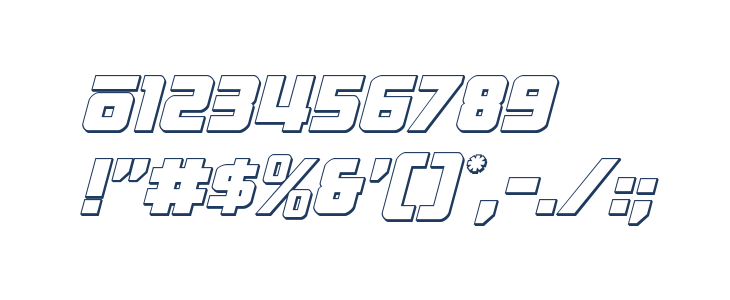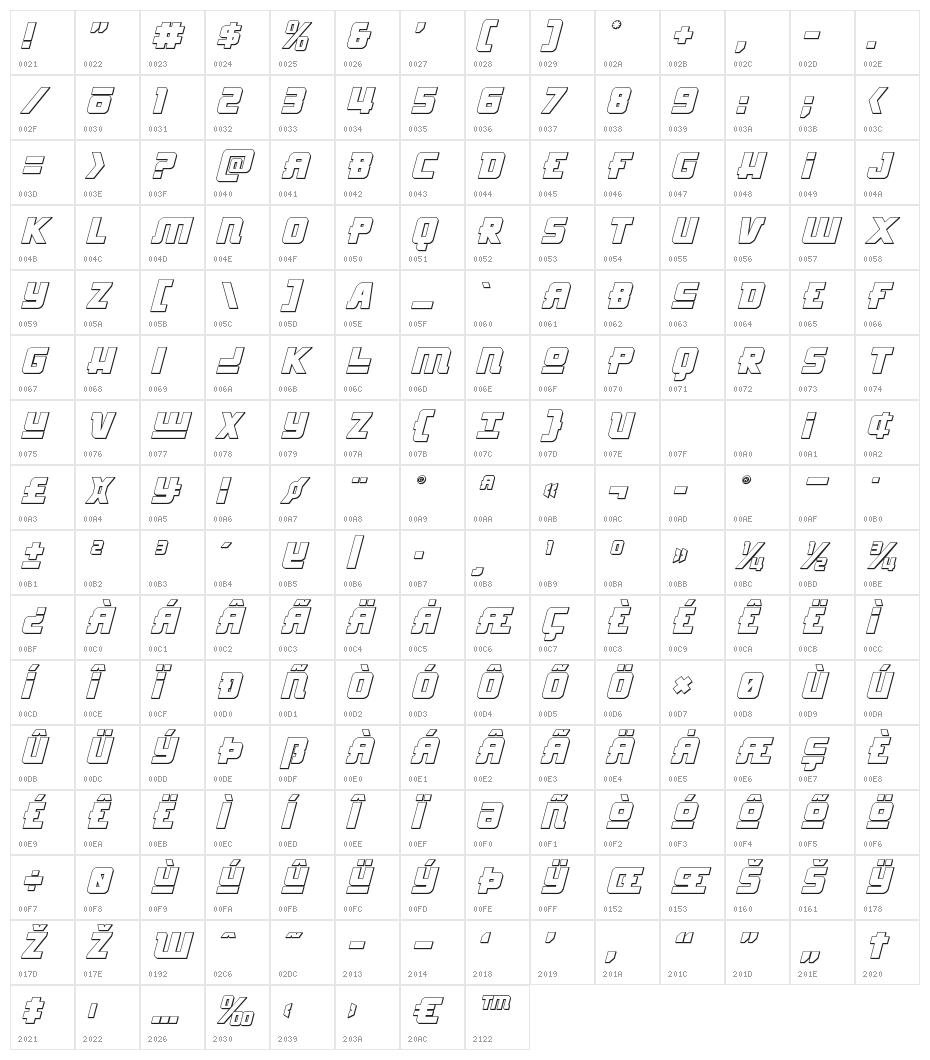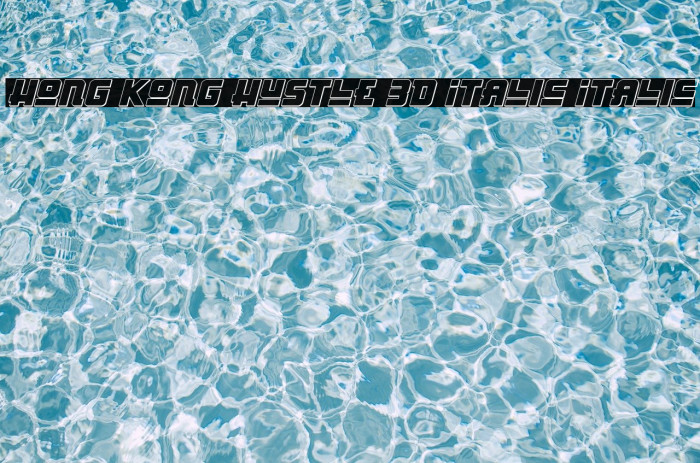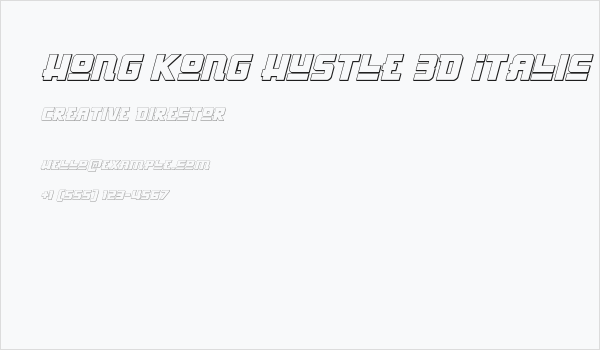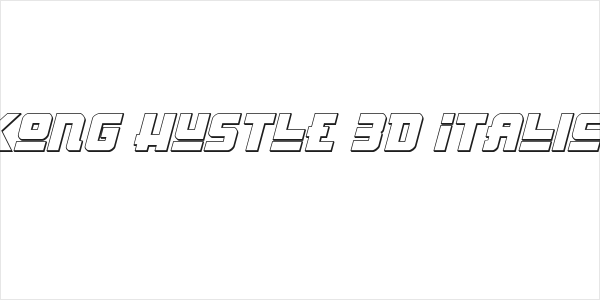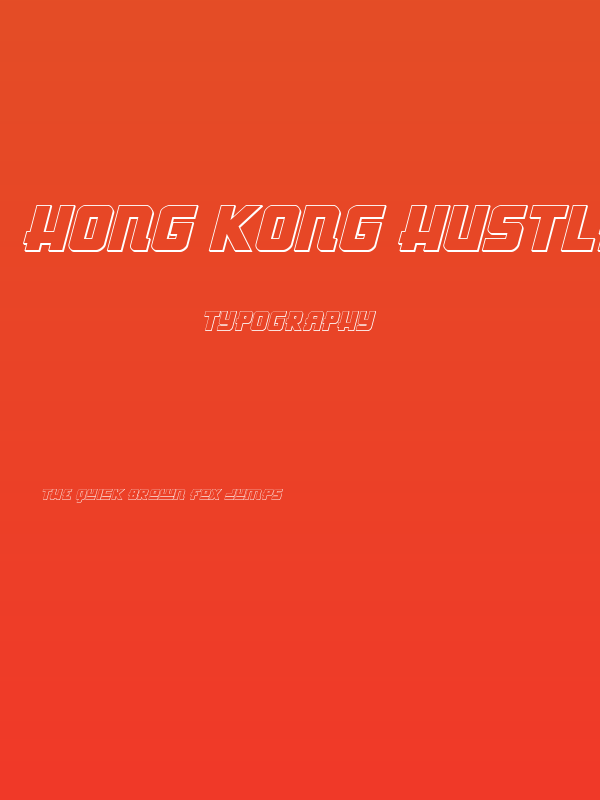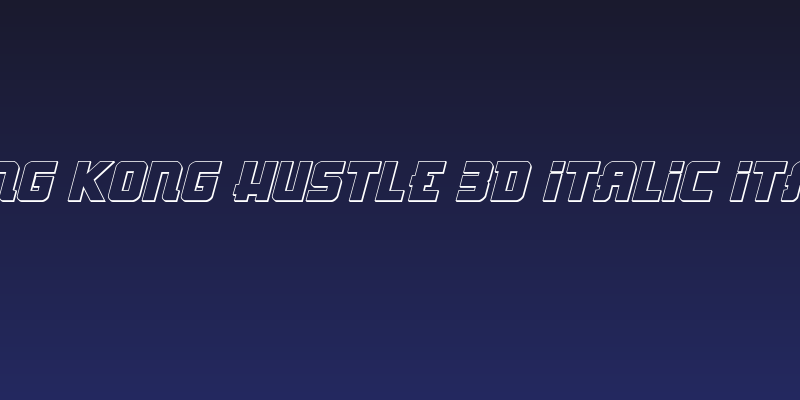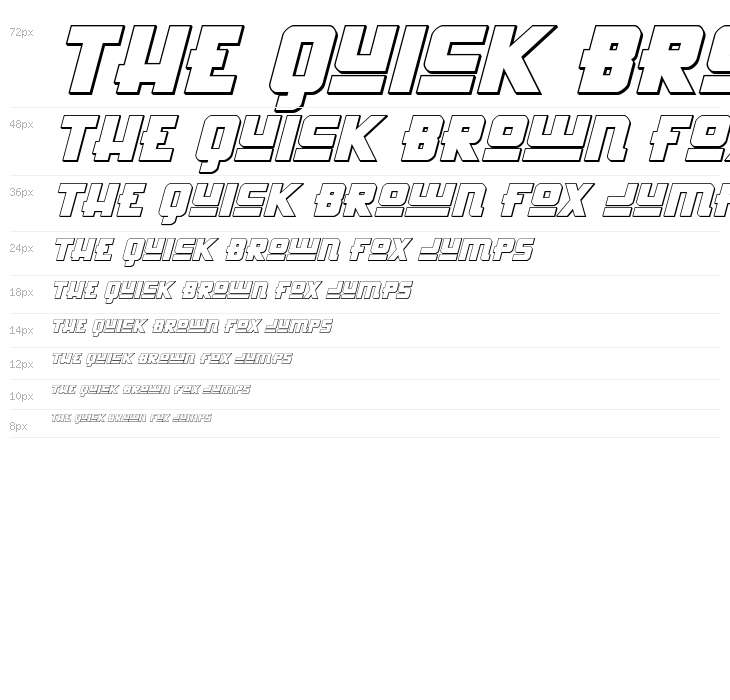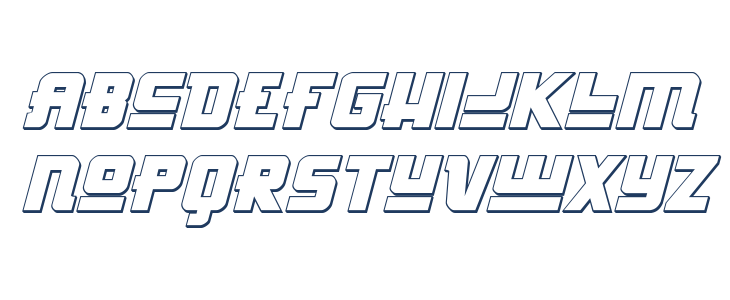
Hong Kong Hustle 3D Italic Italic Font
Hong Kong Hustle 3D Italic Italic Description
This font features a bold, three-dimensional design with an italic slant, giving it a dynamic and futuristic appearance. The characters are outlined, creating a hollow effect that adds depth and visual interest. The geometric shapes and sharp angles contribute to a modern and edgy style, making it stand out in any design. The uppercase and lowercase letters maintain a consistent style, with the numbers and special characters following suit. This font is ideal for projects that require a bold statement and a contemporary feel.
| Proposed Projects | Ideal for video game titles, movie posters, futuristic branding, and tech-related designs. |